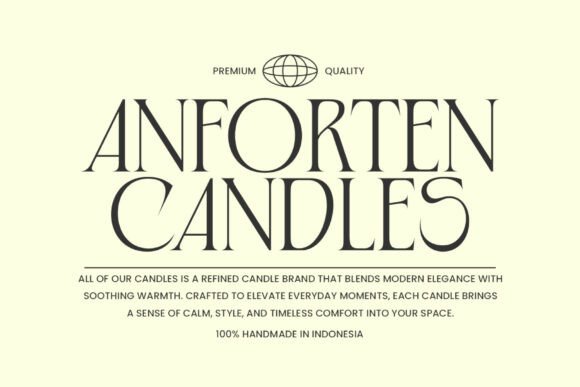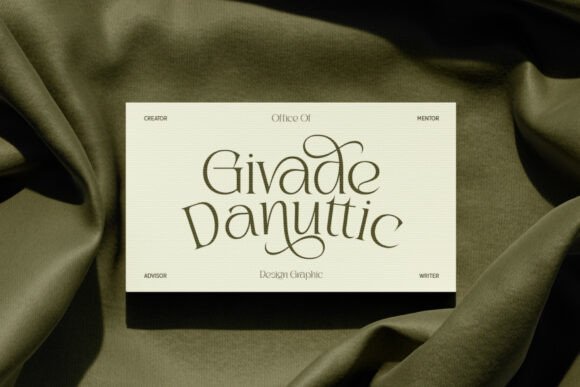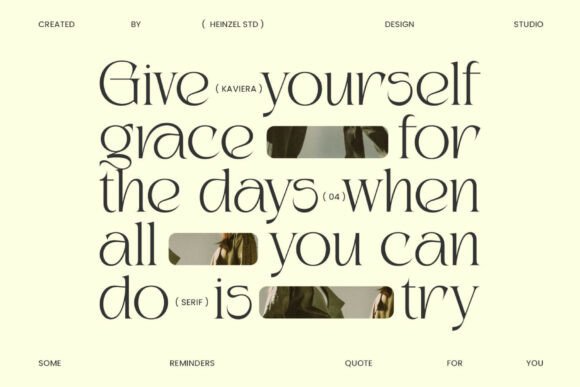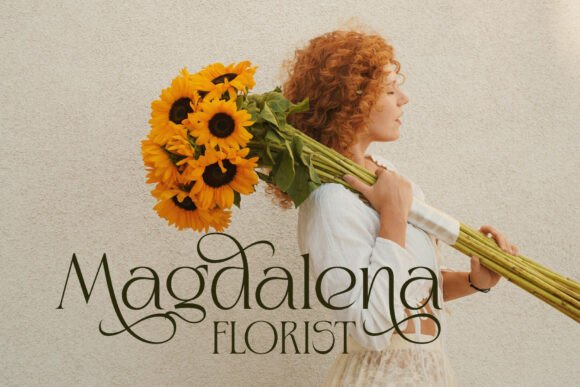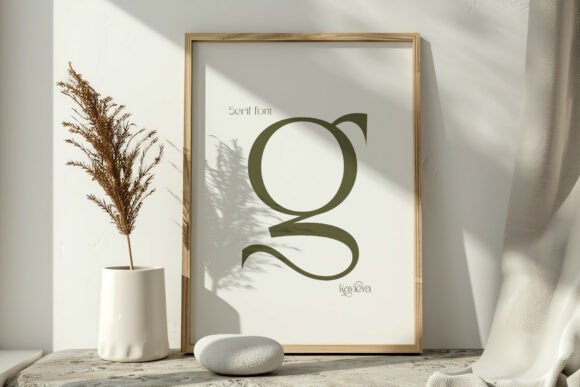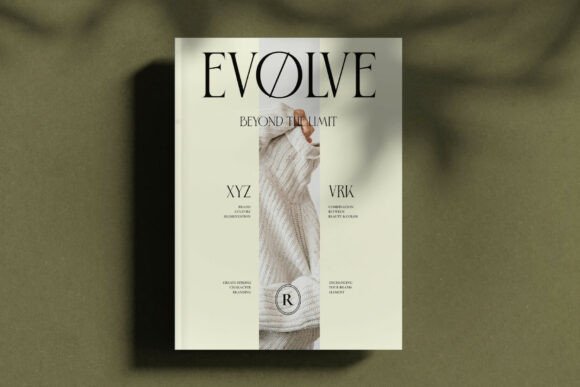
Introduction to Kaviera Font
As designers, we’ve all been there – staring at a blank canvas, trying to bring a creative project to life. The right font can make all the difference, elevating our work from ordinary to extraordinary. And that’s exactly what the Kaviera Font does – it brings a touch of sophistication and elegance to any design.
With its refined letterforms, graceful curves, and sharp contrast, the Kaviera Font is the perfect blend of classic and modern. It’s a design resource that’s both timeless and trendy, making it an invaluable asset for designers who want to create high-quality visual content that stands out from the crowd.
Key Features of Kaviera Font
- Unique, hand-drawn design with intricate details and textures
Honest Review: Kaviera Font
I recently stumbled upon the Kaviera Font and was excited to give it a try. As a designer, I’m always on the lookout for high-quality design resources that can elevate my creative projects. Kaviera Font definitely fits the bill.
- ✨ High-quality glyphs and letterforms that are perfect for titles and headings.
- ⚠️ Limited language support, which may be a concern for designers working on multilingual projects.
- ⚠️ Not as versatile as some other fonts in terms of font weights and styles.
Overall, I’m impressed with the Kaviera Font. It’s a great addition to any designer’s toolkit, especially for creative projects that require a high-quality, elegant font. With its transparent background and free download, it’s definitely worth checking out. Just be aware of its limitations, and you’ll be all set to create stunning designs with this font.
Tips for Getting the Most Out of Kaviera Font
Use the Kaviera Font in combination with other design elements to create visually appealing graphics. Experiment with different font sizes and styles to add depth and interest to your design. Since the Kaviera Font has a transparent background, it’s easy to overlay on top of other images or graphics.